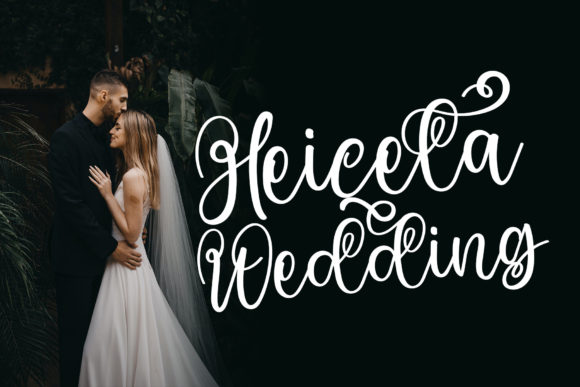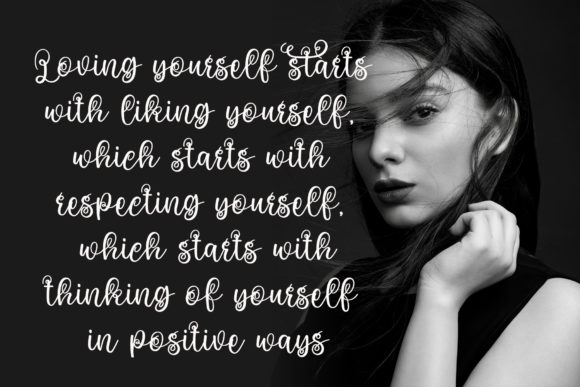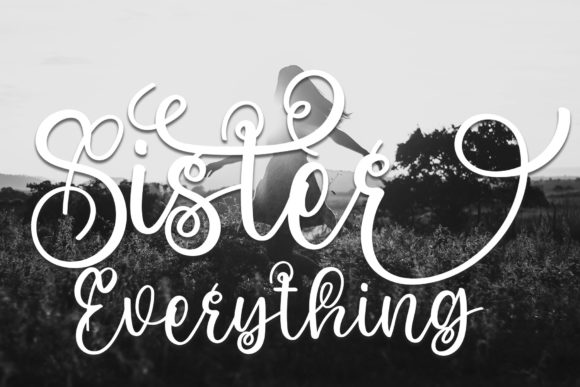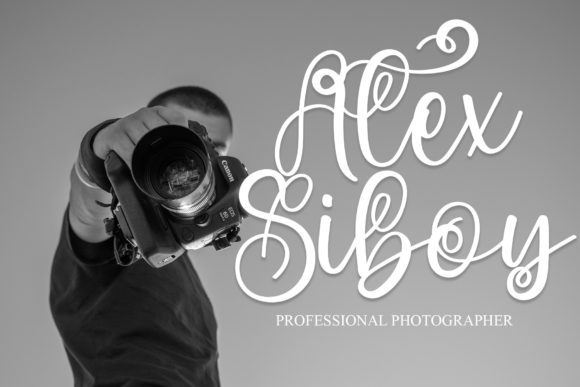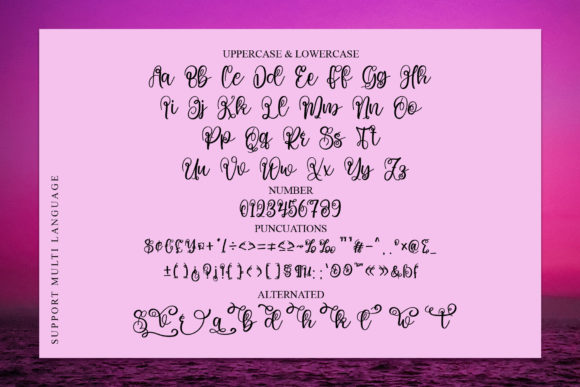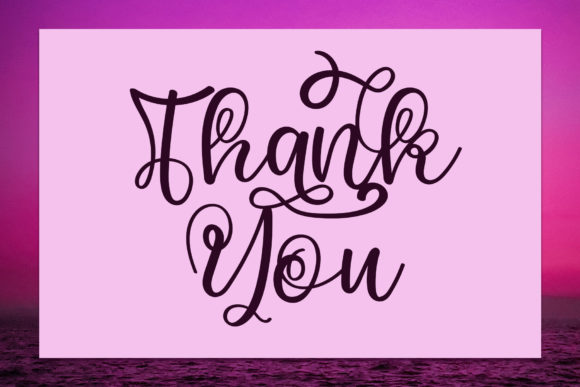
Introduction to Slavery Font
Slavery is a fine, smart script font that emanates sophistication and elegance.
It is PUA encoded which means you can access all of the glyphs and swashes with ease Fall in love with its incredibly versatile style and use it to create spectacular designs.
Key Features of Slavery Font
Why Choose Slavery Font?
Slavery Font offers exceptional quality and versatility, making it a valuable addition to your design toolkit. Whether you’re creating for personal projects or commercial use, Slavery Font delivers professional results.